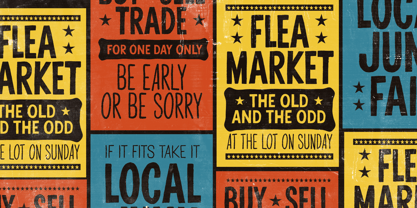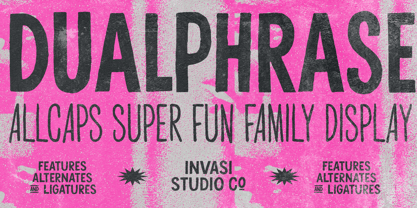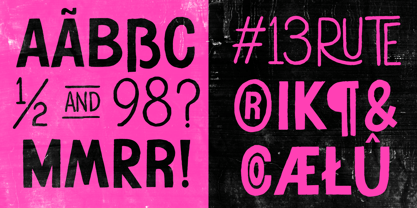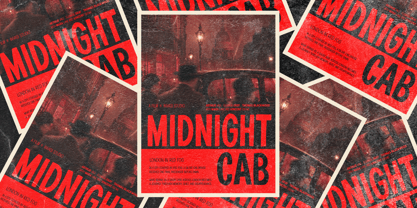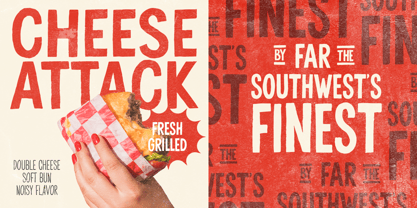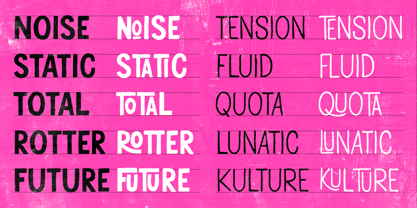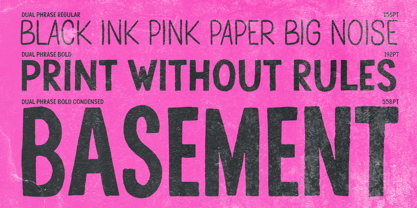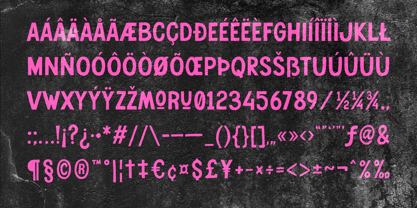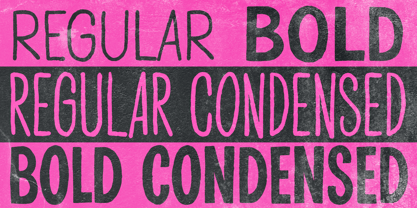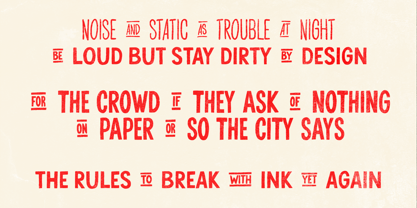
Dual Phrase
La familia tipográfica Dual Phrase fue diseñada por Gha Arizal y publicada por Invasi Studio. Dual Phrase contiene 4 estilos y opciones de paquete familiar. Más información sobre esta familia
Dualphrase is a four-style display family — Regular, Bold, Regular Condensed, Bold Condensed — designed for high-impact headline and poster applications. All styles are uppercase-only with hand-drawn rough edges integrated at the outline level.
The irregularity in the letterforms is structural, not a post-process effect. Stroke edges carry subtle unevenness that produces a raw, hand-cut quality while maintaining consistent readability at display sizes. The forms are designed rough but the spacing and proportions are controlled.
OpenType features include Discretionary Ligatures (dlig) covering 17 common English word pairs (AND, AS, AT, BE, BUT, BY, FOR, IF, IN, OF, ON, OR, SO, THE, TO, WITH, YET) — these compose word pairs into single typographic blocks for poster-style headline composition. Stylistic Alternates (salt) provide character variation to reduce repetition in all-caps settings. Standard Ligatures (liga) are included. 221 glyphs per style.
Language support covers 100+ Latin-based languages including Western European, Central European, Baltic, Turkish, and various African language groups. Full character set includes numerals, punctuation, and extended symbols.